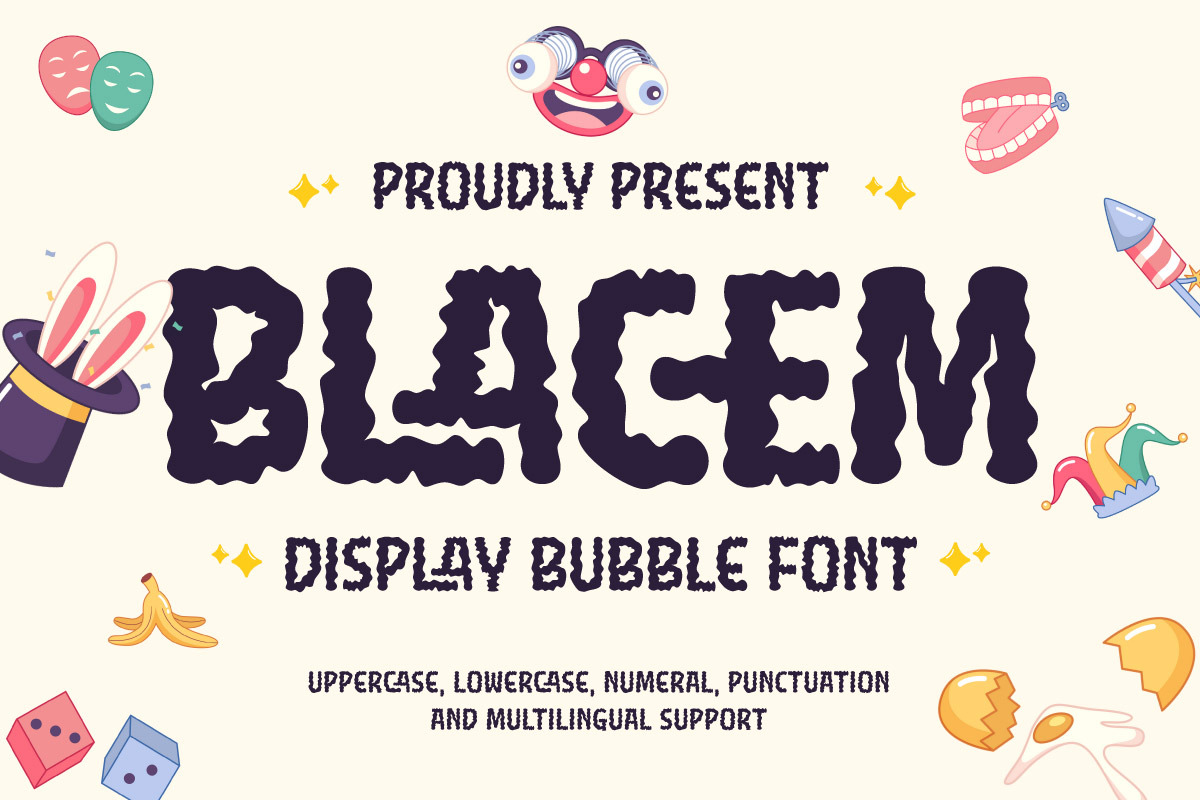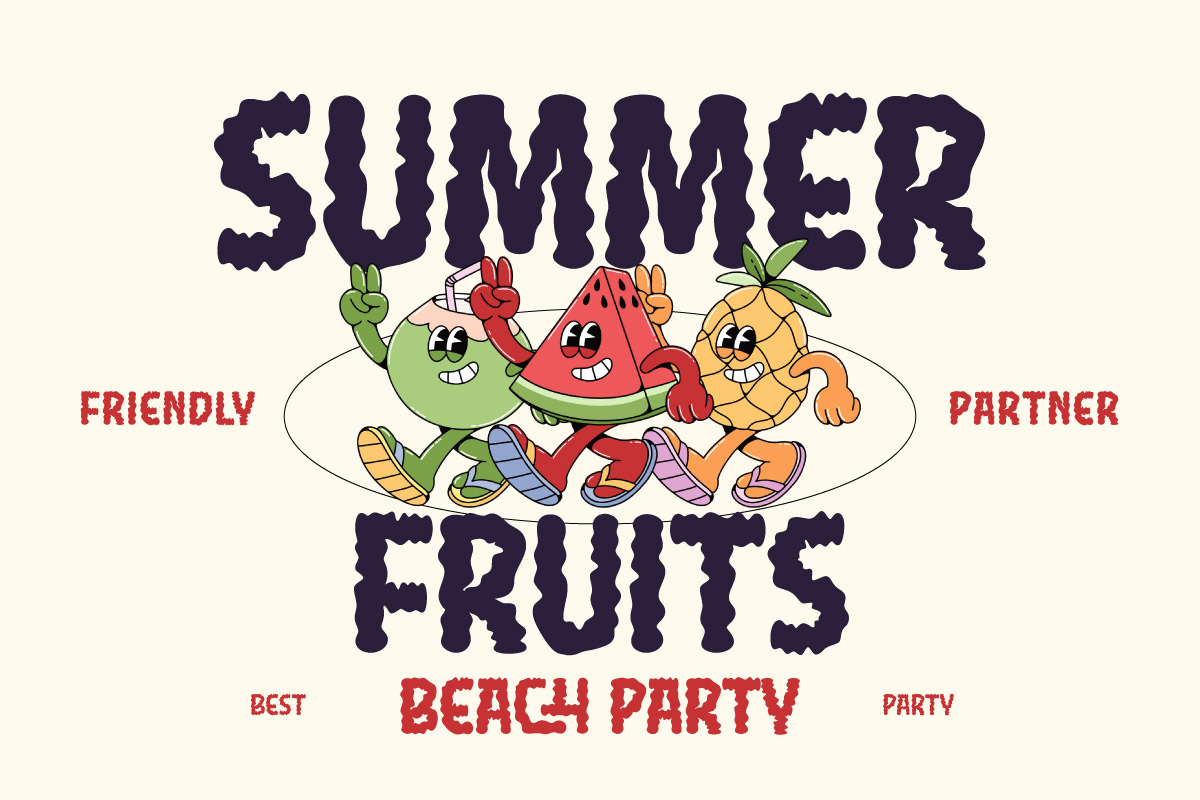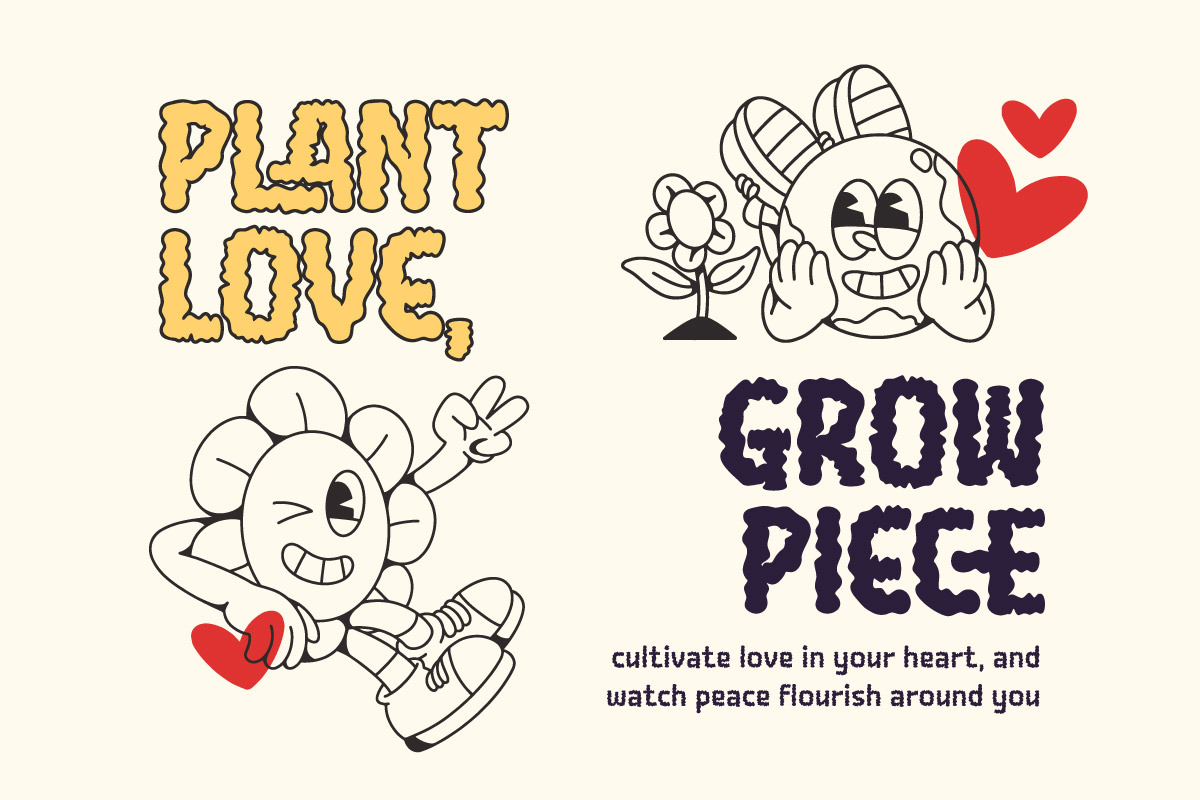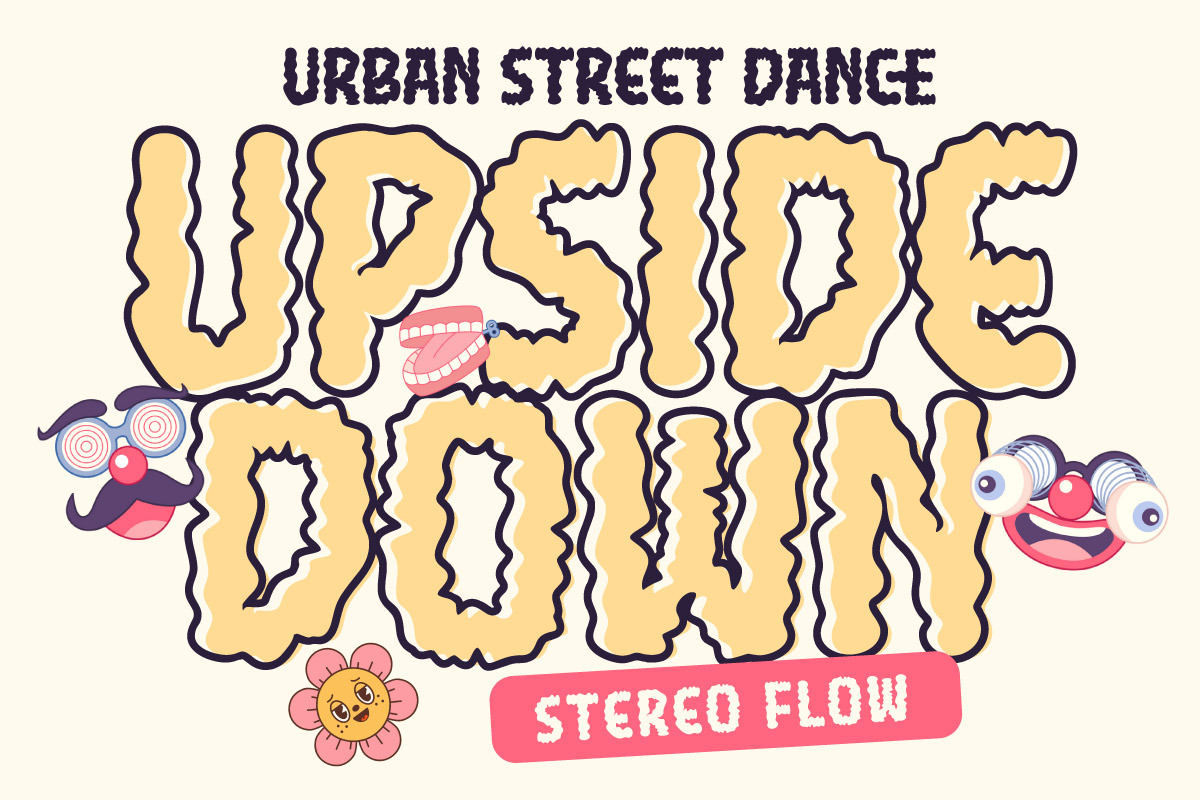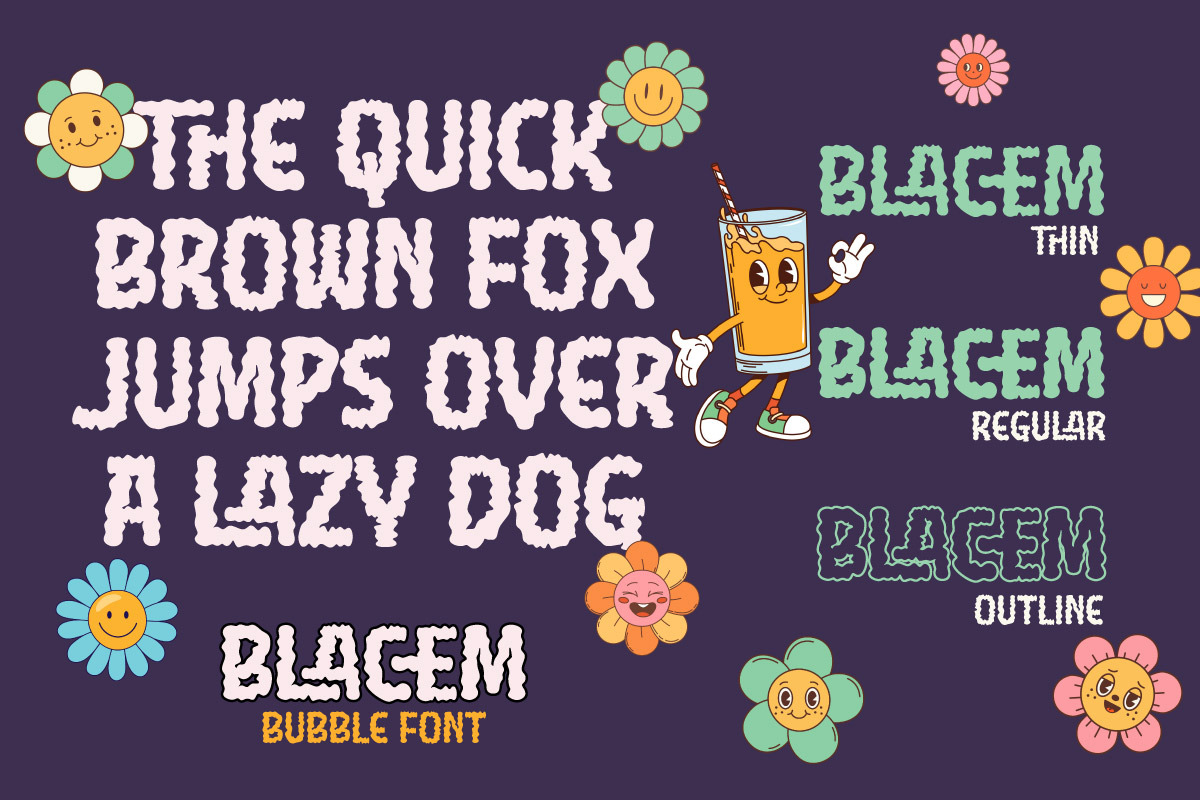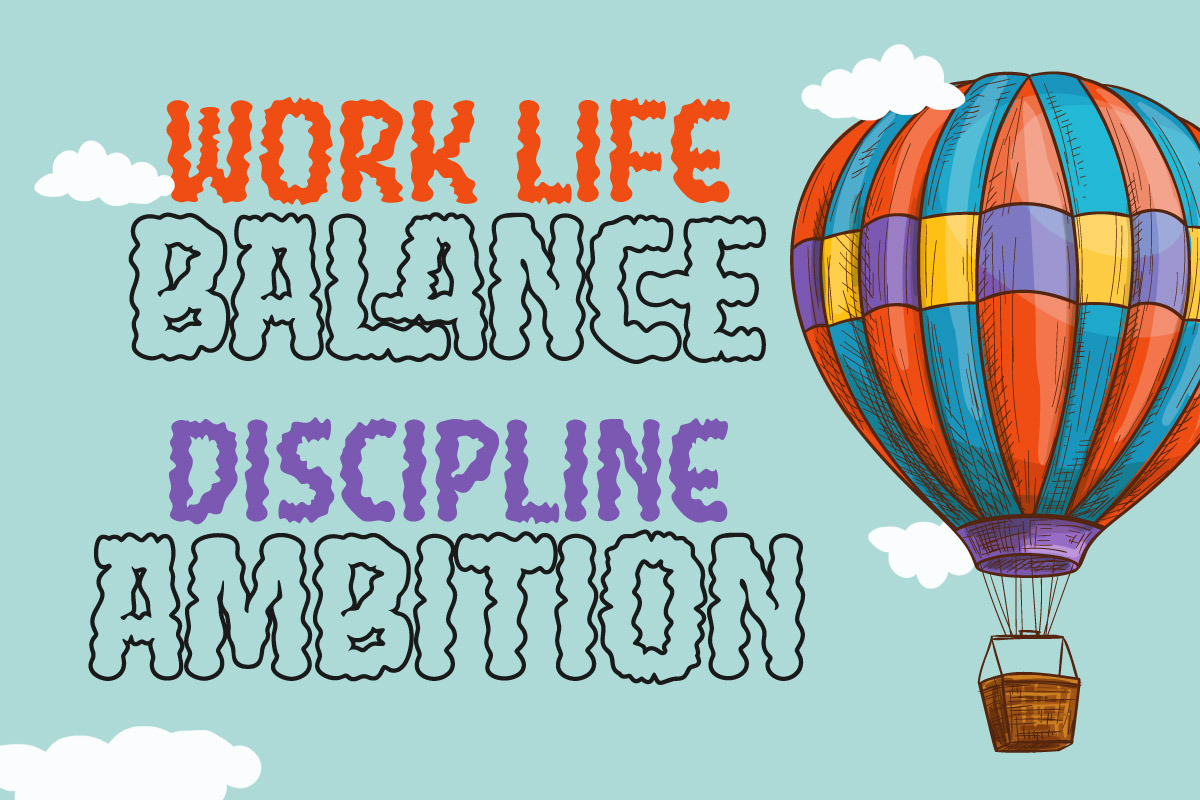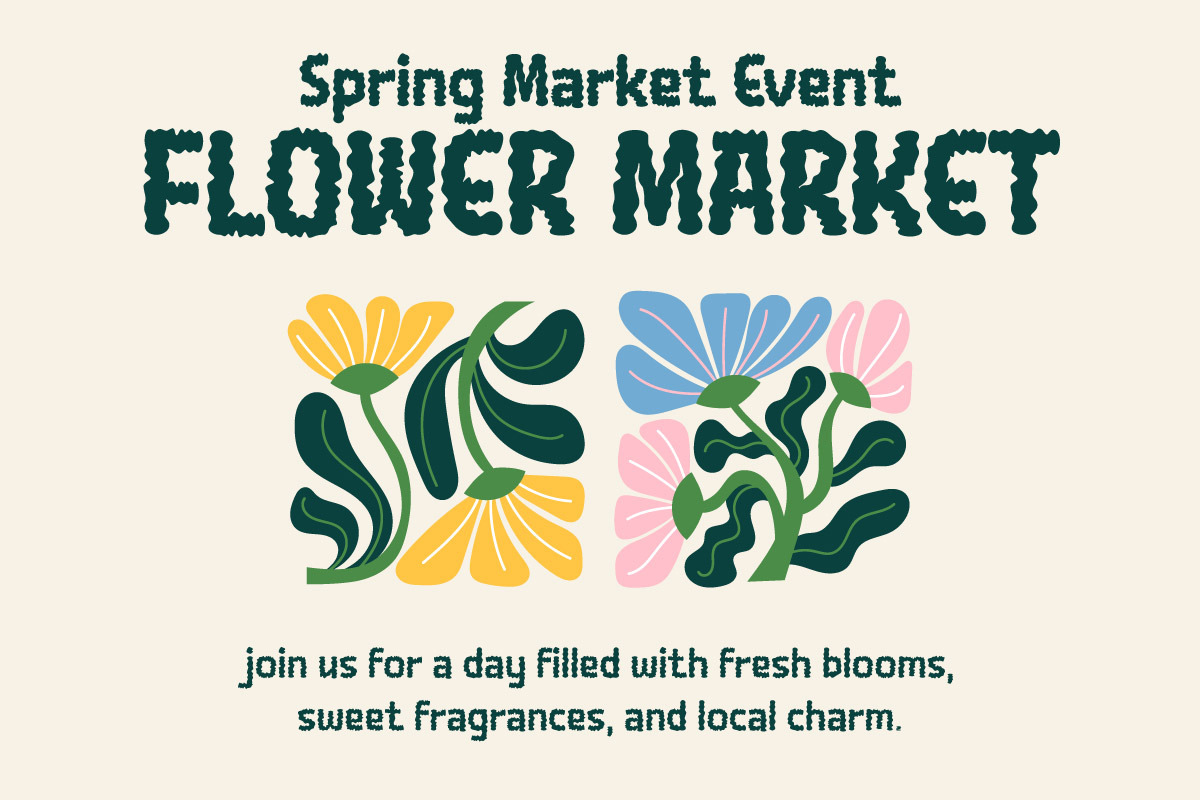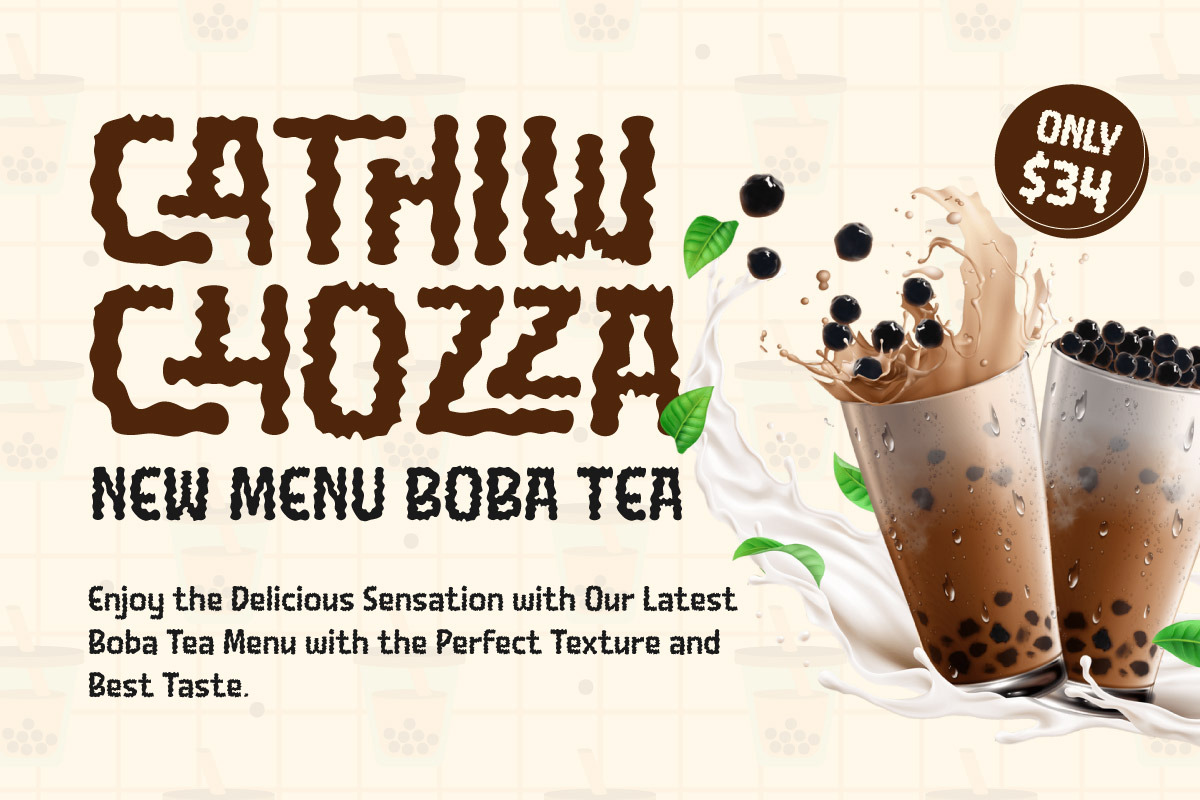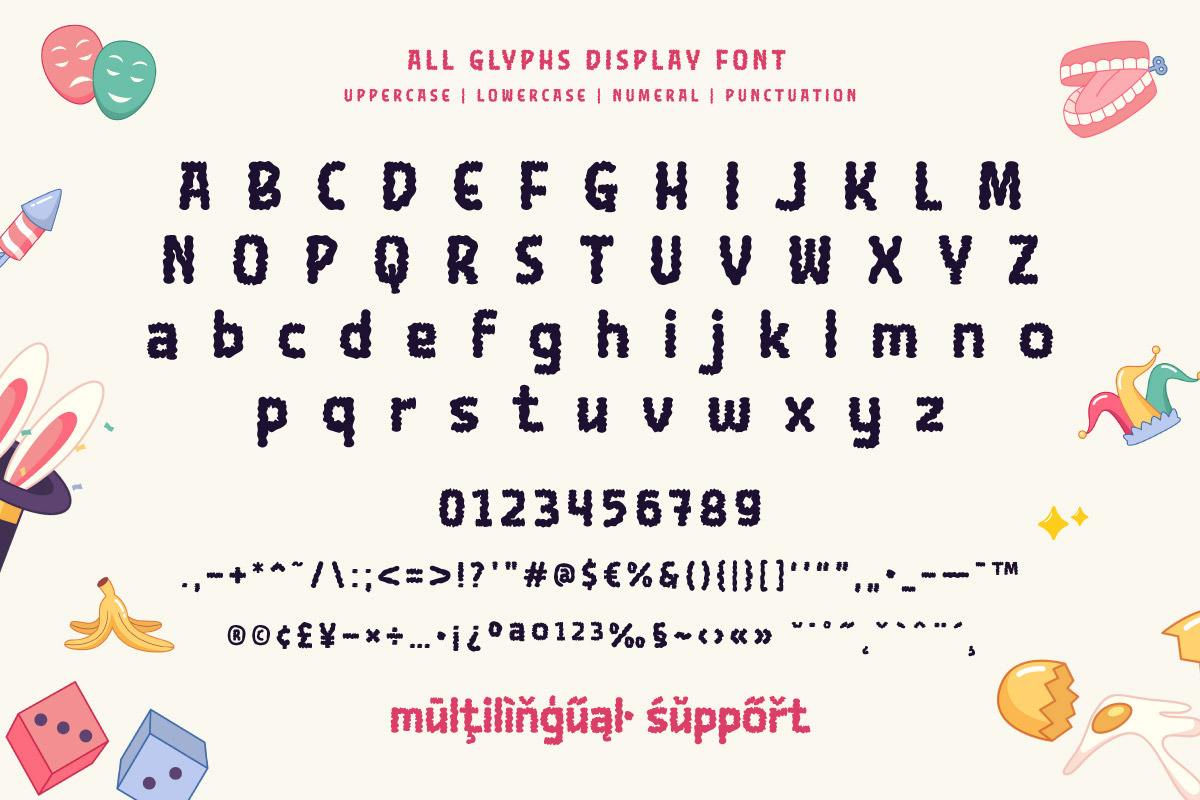
Blacem - Display Bubble Font
Blacem is a playful and bold display bubble font that brings fun, lightness, and a sense of joy to any creative project. With three versatile styles—Thin, Regular, and Outline—Blacem gives you the freedom to mix and match for eye-catching headlines, children’s book covers, packaging, posters, and cartoon visuals.
Each character in Blacem is designed with rounded shapes, a bubbly personality, and smooth contours, making it perfect for designs that aim to be cheerful and expressive. Whether you’re creating fun illustrations, branding for kids' products, or engaging content for digital platforms, Blacem will help your message pop with vibrant energy.
Let your creativity expand with this multi-style font and make your visual identity as fun and fresh as a bubble!